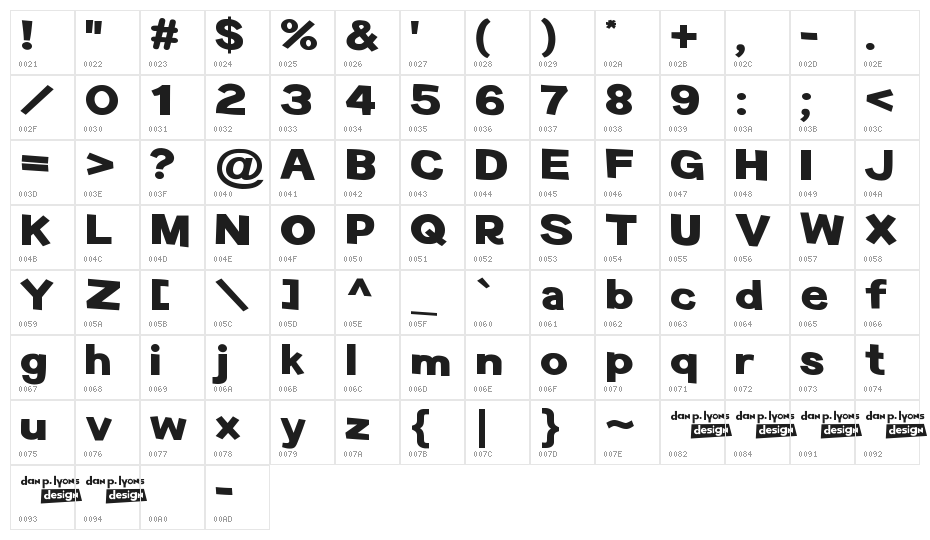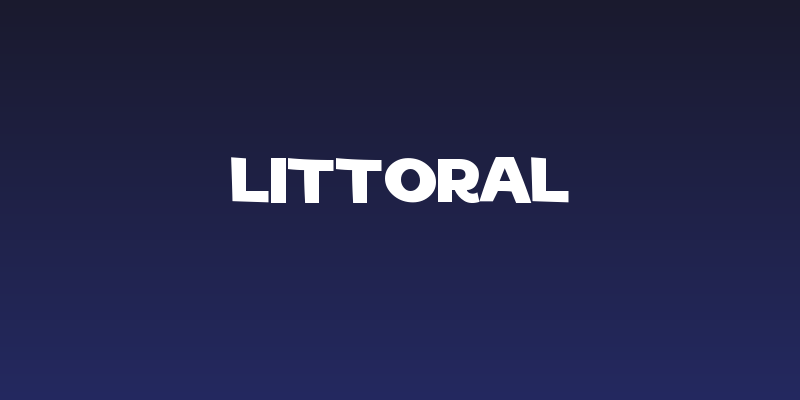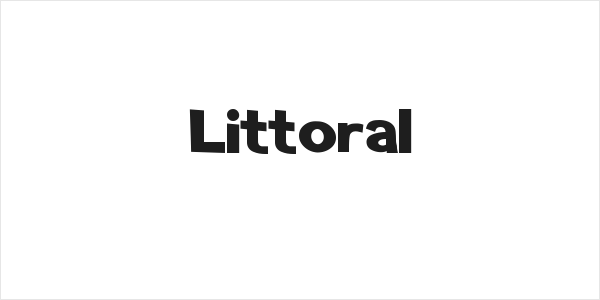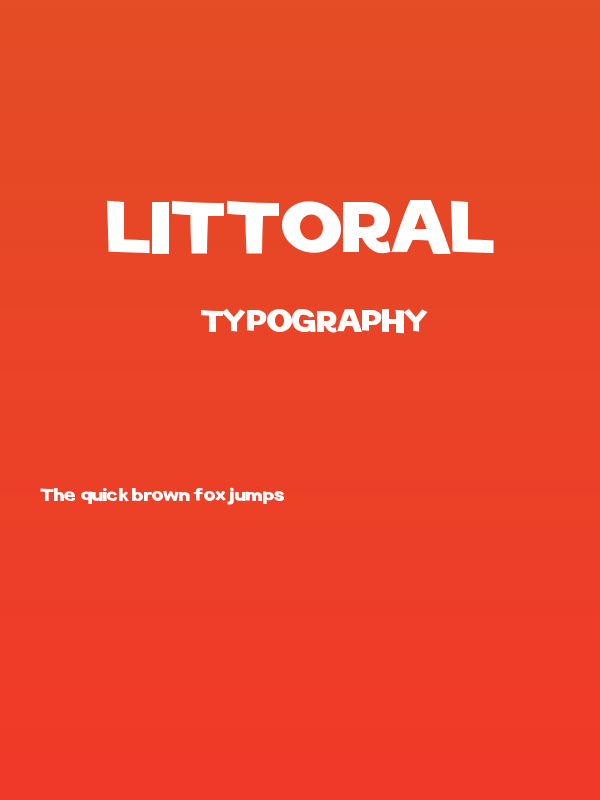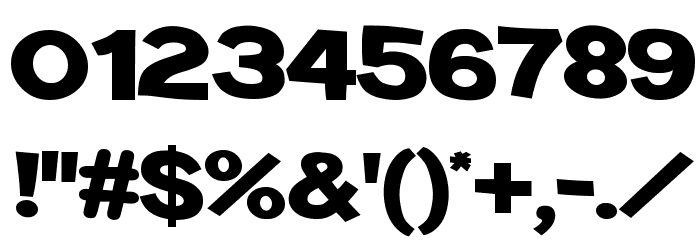
Littoral Font
Littoral Description
This font features a bold and robust design with thick, uniform strokes that convey a sense of strength and modernity. The characters are well-defined with a consistent weight throughout, making it highly legible and impactful. The uppercase and lowercase letters maintain a harmonious balance, while the numerals and special characters are crafted to match the overall aesthetic. The font's clean lines and solid structure make it versatile for various design applications.
| Proposed Projects | Ideal for branding, headlines, posters, and any project requiring a strong visual impact. |